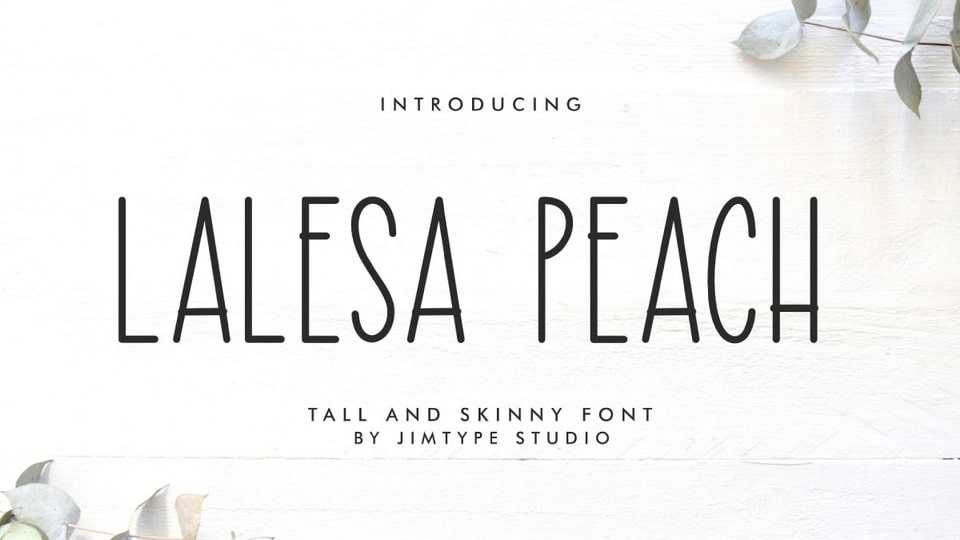
Download Lalesa Peach font, a tall skinny typeface, perfect for adding a touch of whimsy to your projects. This font is ideal for shirt designs, country decor, farmhouse signs.